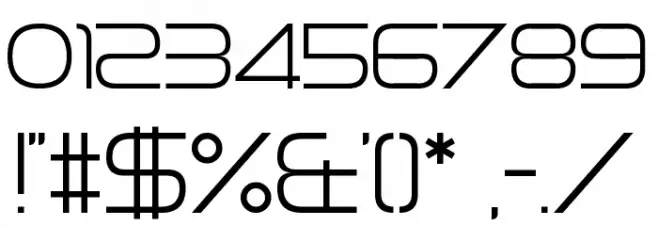
Vermin Vibes 2 White Font
This font features a futuristic and geometric design, characterized by its clean lines and angular shapes. The uppercase letters are distinct with a modern aesthetic, incorporating sharp angles and a consistent stroke width. The numerals and special characters maintain this geometric theme, providing a cohesive look across all characters. The font's design is minimalistic yet striking, making it suitable for projects that require a contemporary and edgy feel. Its unique style is ideal for branding, posters, and digital media where a bold statement is needed.
A futuristic, geometric font with clean lines and angular shapes from Uncategorized fonts.
- Proposed Projects: Ideal for branding, posters, digital media, and projects requiring a modern, edgy look.